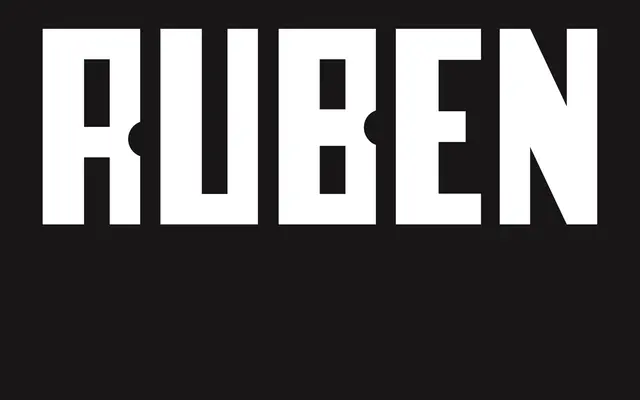
A display typeface drawn from the visual remnants of the 1970 National Chicano Moratorium, honouring journalist Rubén Salazar.
Vocal Type's Ruben takes its formal cues from lettering found in materials connected to the 1970 National Chicano Moratorium march in East Los Angeles, where 25,000 activists gathered to protest the Vietnam War. The typeface is named for Rubén Salazar, a journalist and advocate for Latino rights who was killed by Los Angeles Sheriff's deputies during the march. It sits within Vocal Type's broader project of recovering and archiving the typographic heritage of civil rights movements.
Described as inspired by remnants of 1970s Chicano protest materials, suggesting a historically-grounded display typeface with editorial and activist visual heritage.